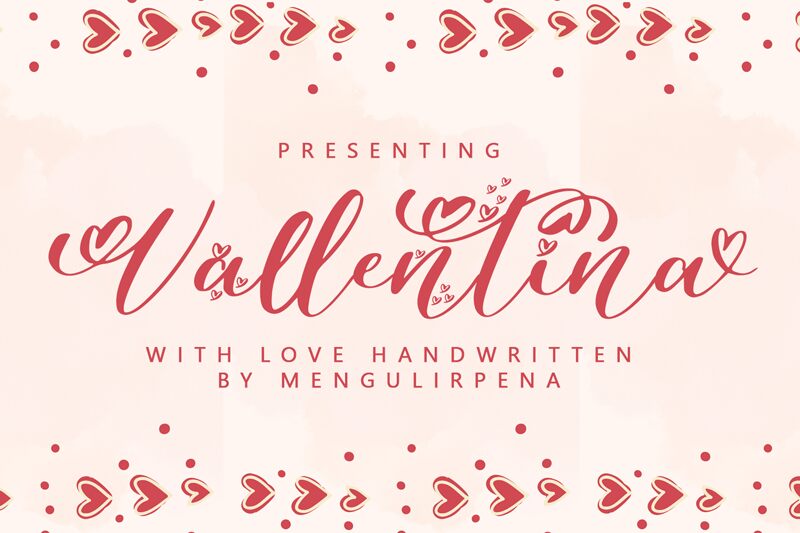
Vallentina
Vallentina by Mengulirpena_2022 is a stunning calligraphy font that will add an elegant touch to any project. Its romantic and dreamy style makes it perfect for designing wedding invitations, love letters, or any Valentine's Day-themed designs. The semi-bold font allows for excellent readability, while the cursive script adds a personalized touch to your work. This font is also suitable for branding projects, such as beauty or fashion-related businesses, thanks to its feminine and delicate nature. Whether you're creating social media graphics or print materials, Vallentina will make your work stand out with its graceful curves and flourishes.